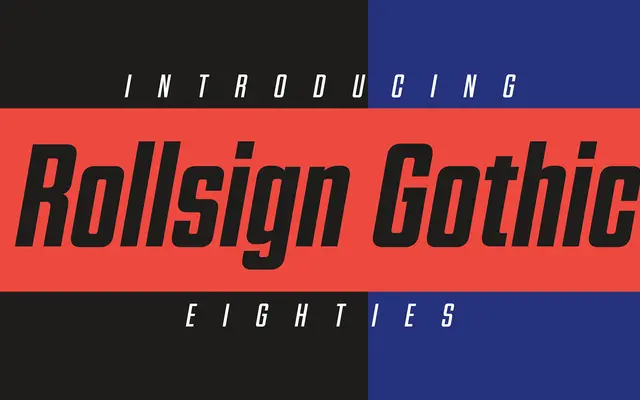
Rollsign Gothic
A tall, narrow display gothic drawn from the hand-lettered rollsigns of pre-digital bus and train signage.
The proportions are dictated by the original problem of rollsign lettering: fitting a large amount of text into a tight rectangular space without sacrificing legibility. Seven weights with matching italics give the family range from restrained to commanding, and the retained handcrafted quality keeps it from feeling purely mechanical. Suited to posters, video titles and packaging where vertical compression and visual weight are doing the work.
A tall, narrow display typeface derived from hand-drawn transit rollsigns, combining utilitarian signage lettering with strong vertical proportions suited to poster and headline use.